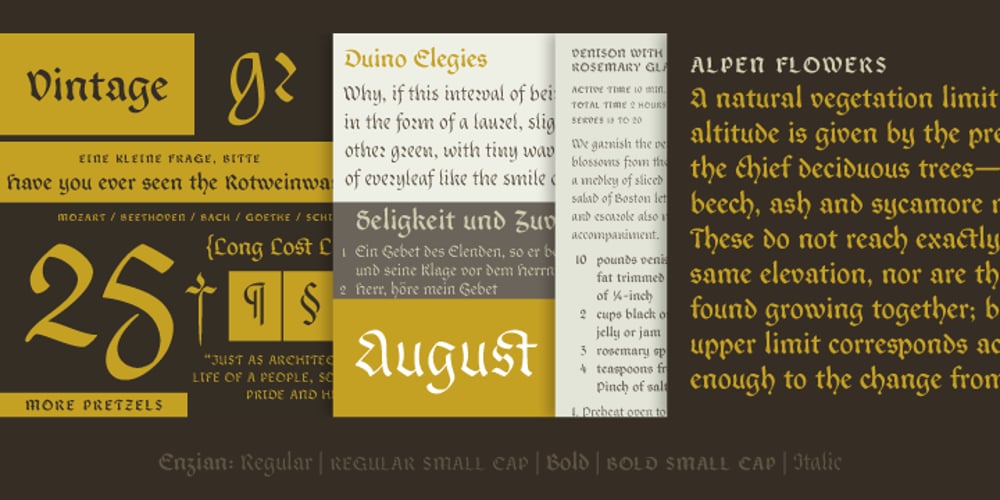
Enzian Font Family was designed by Jason Mannix and published by Polygraph. Enzian contains 3 styles and family package options. Enzian is the fruit of a yearlong German Chancellor Fellowship sponsored by the Alexander von Humboldt Foundation. Our hope was simple: to make something useful and beautiful out of something that most people consider to be neither. We were fascinated by the complex persona of Blackletter in Germany and drawn to its emotive ornament and its sensual, non-geometry. Two areas in particular, the long-standing rivalry and widely-believed inferiority that Blackletter had with Roman type and Blackletter’s relevance in contemporary culture, became the foundation of the project. The result is Enzian: an invigorated, original Blackletter of uncommon depth and hopefully, a bit of charm. It is warm and expressive, feminine and contemporary, while staying true to its hand-written, calligraphic roots. Enzian is a multi-language, workhorse typeface that can create hierarchy (with unconventional italic and small caps), and has numerals that fit the family. It is a display face that isn’t afraid of handling longer text; one that is equally comfortable in headlines and in poetry. We are delighted to announce that Enzian has been awarded a Certificate of Excellence in Type Design by the Type Director’s Club.